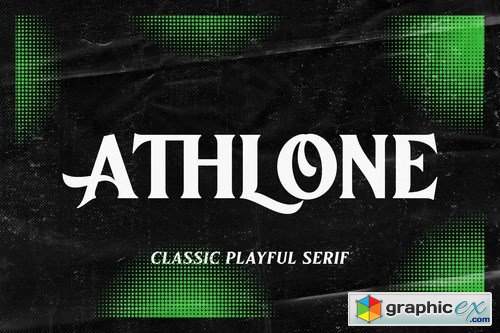
Athlone
Introducing Athlone. A display font that inspired by the vintage/classic letterforms used in old-advertisements.. Mouse-crafted with high attention to details; clean lines, sharp edges and tempting curves. Available in italic version too, gives you more options too play with. Suits best for title/headline, logo/logotype, packaging/label designs, etc.